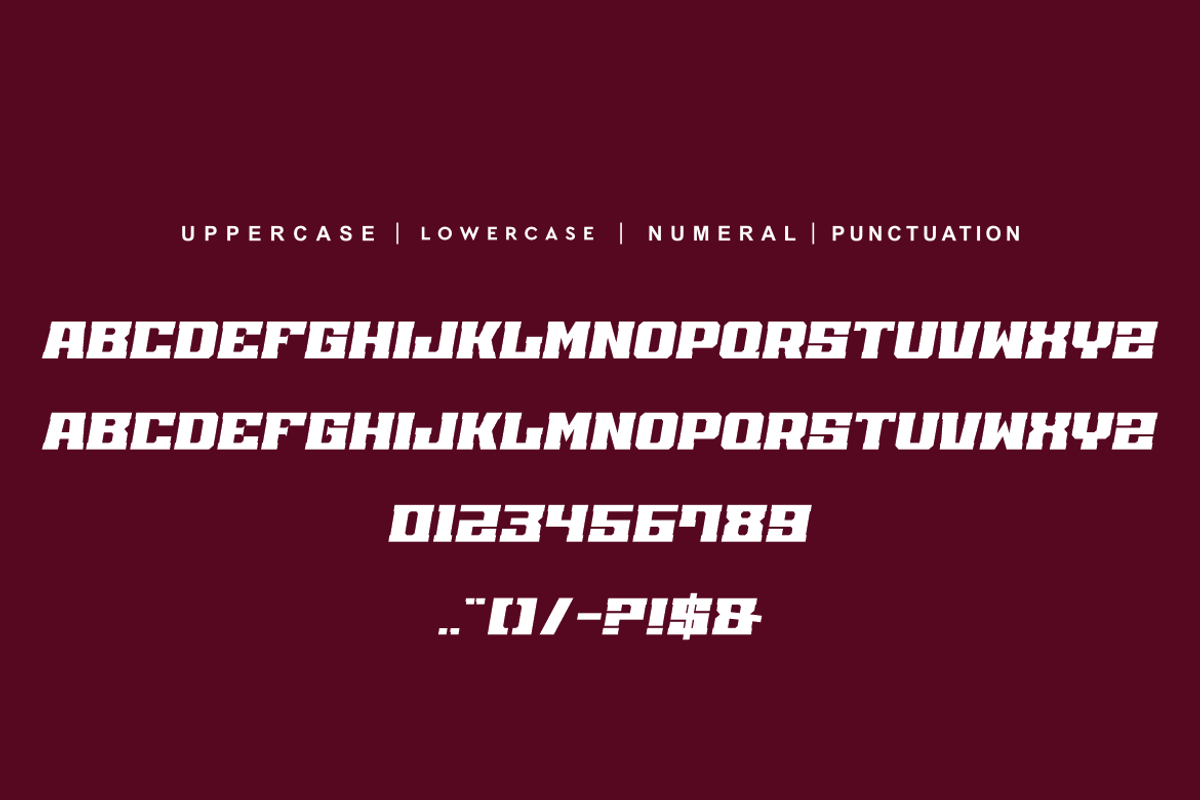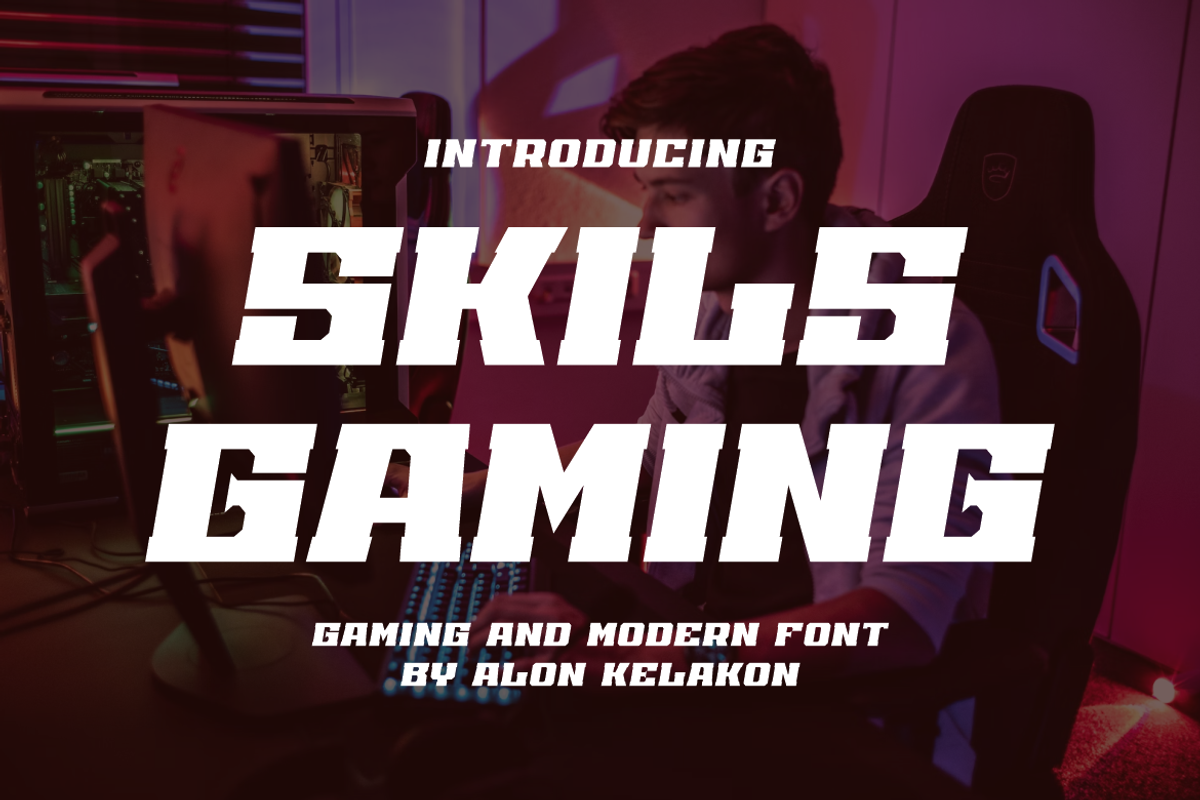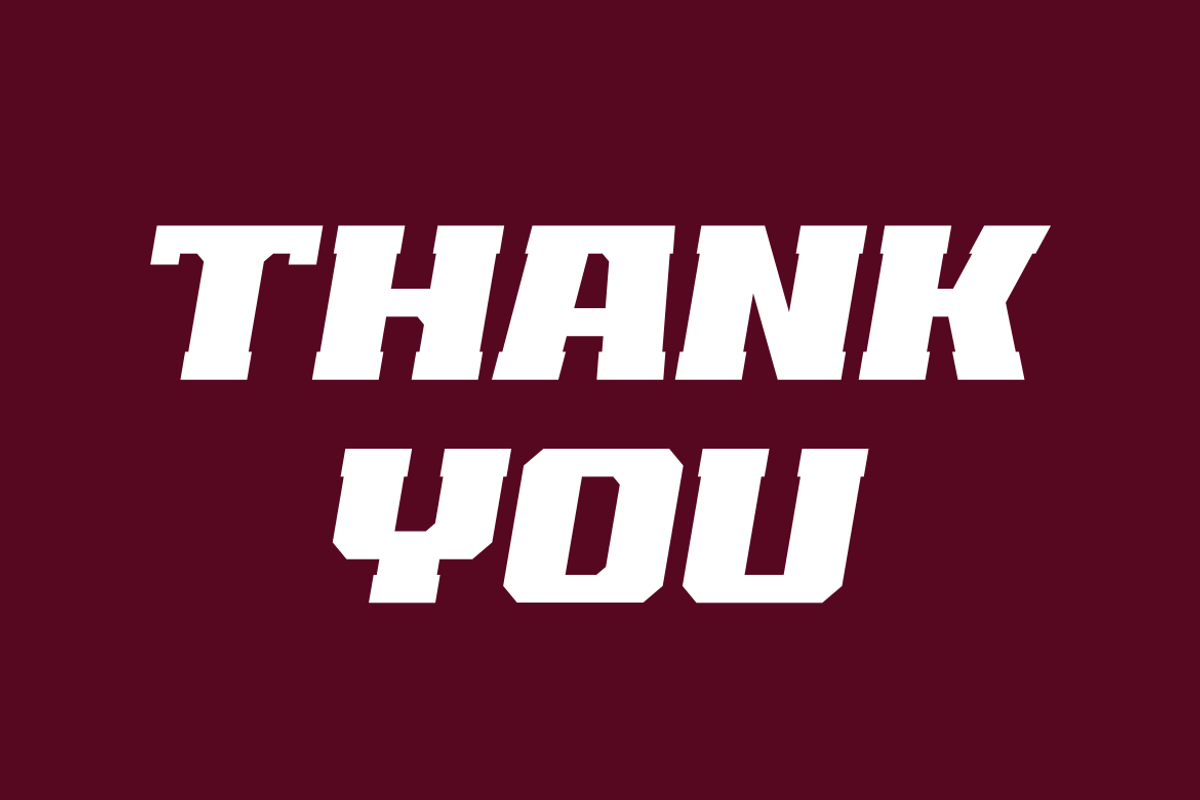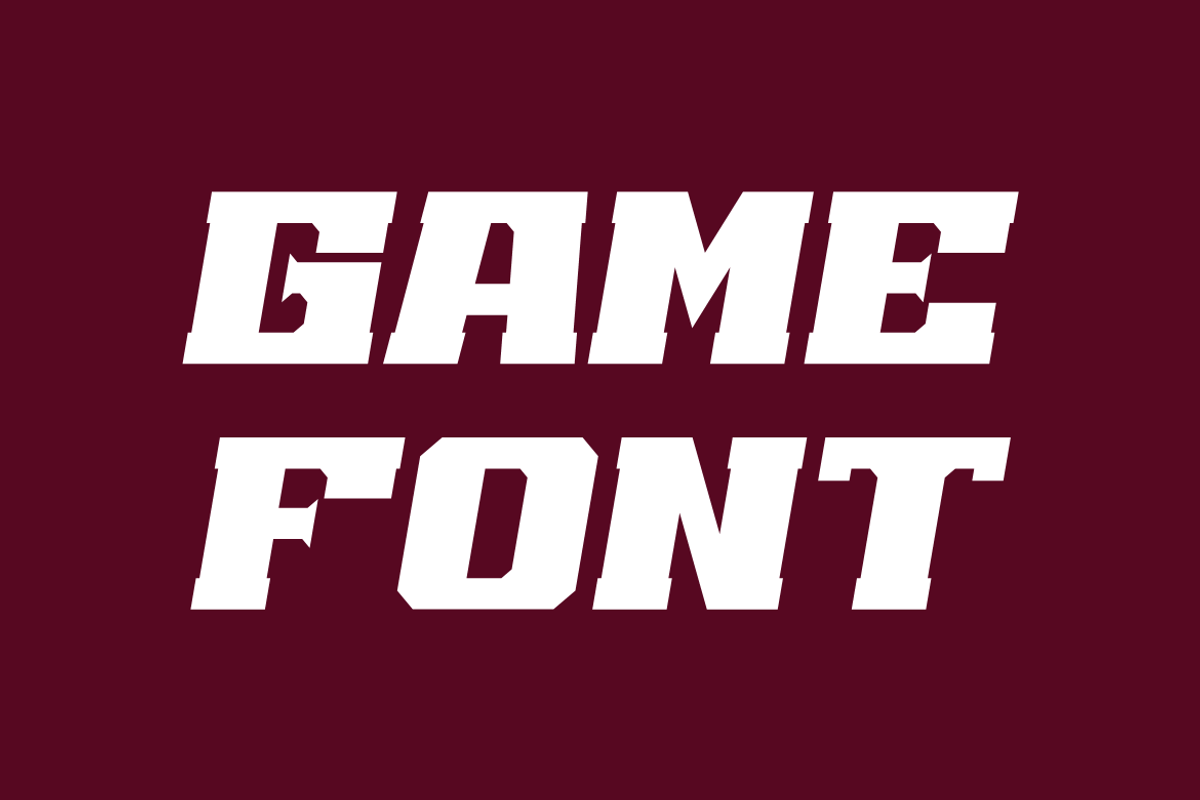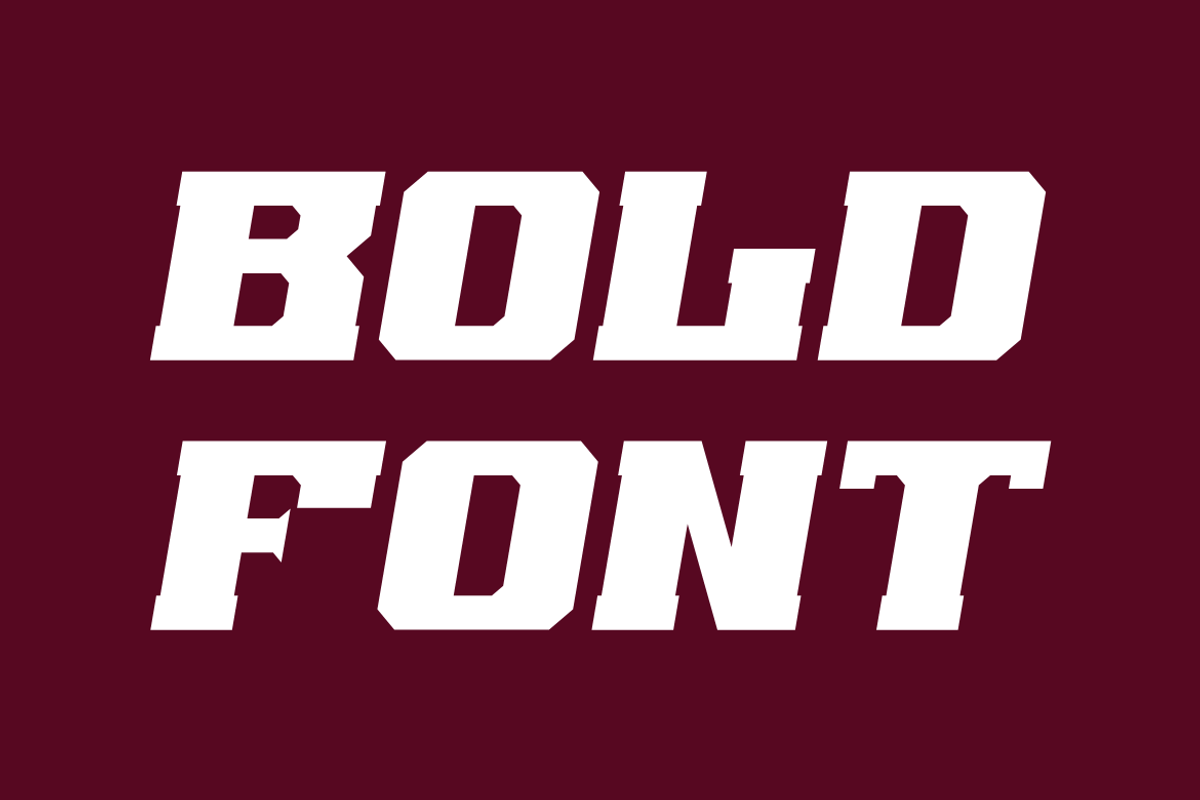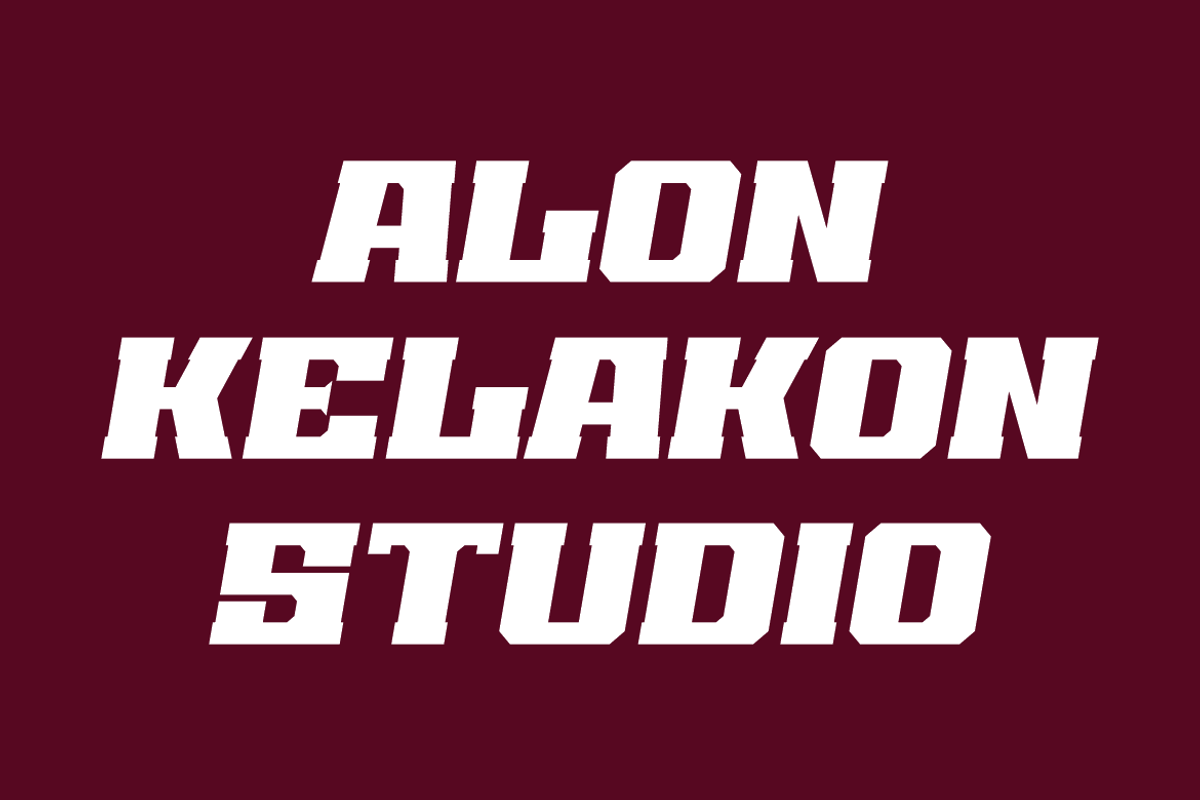
Skils Gaming
Skils Gaming Font is unique . Ready to use for your design like labeling, movie sceen, poster, movie title, gigs, album covers, logos, and much more.